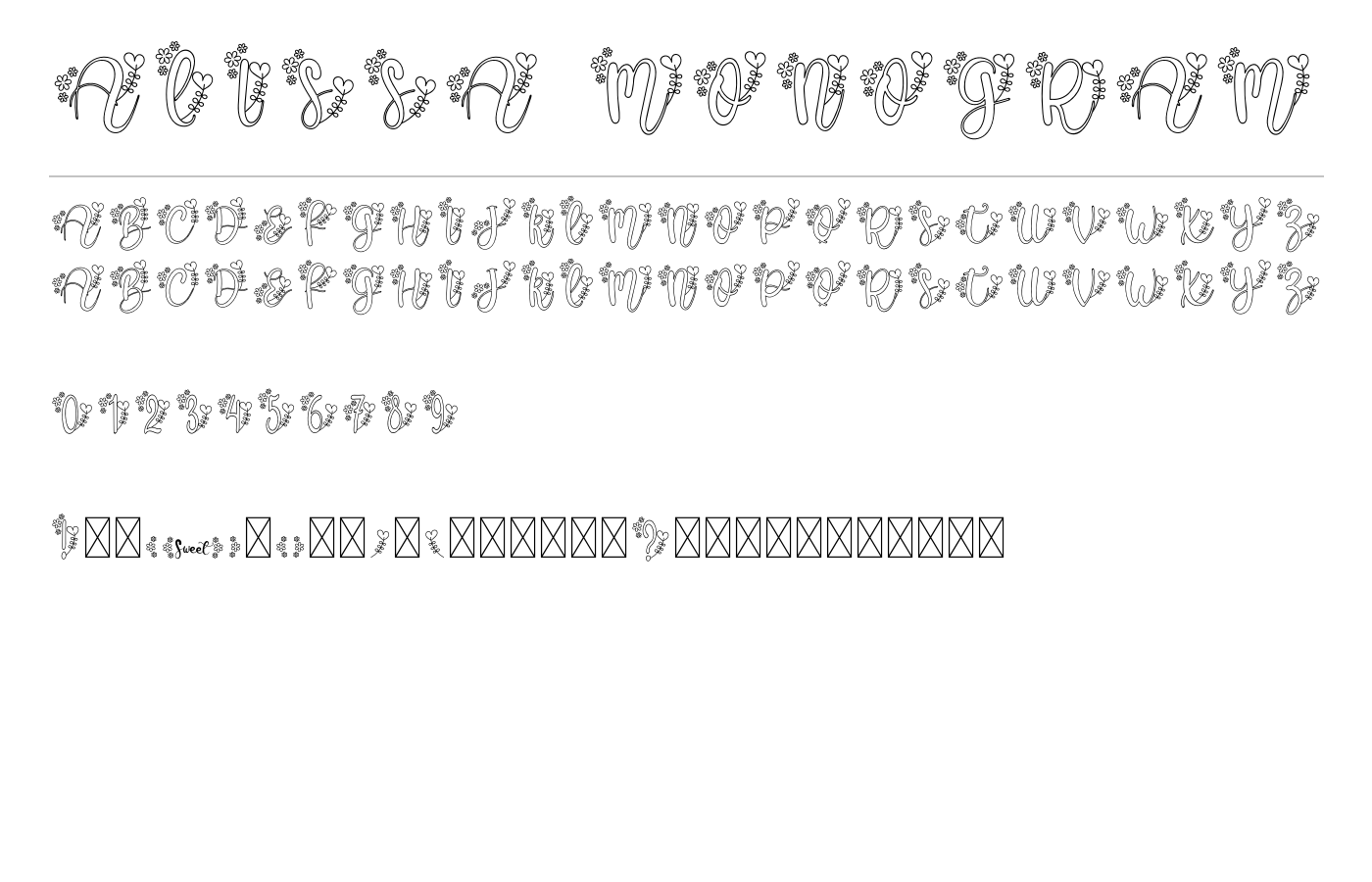
Alissa Monogram Font is a playful and decorative script style featuring intricate, flowing letterforms adorned with charming heart and flower motifs. Its light, airy strokes and whimsical embellishments make it ideal for creating personalized monograms, wedding invitations, or feminine branding that evokes a sweet and romantic feel. This font shines best in display uses where its delicate details can be appreciated up close.
Alissa Monogram Font
About Alissa Monogram Font
| Font family | Alissa Monogram Font |
| Designer | Nur Edi Prayitno |